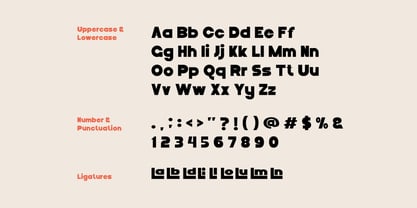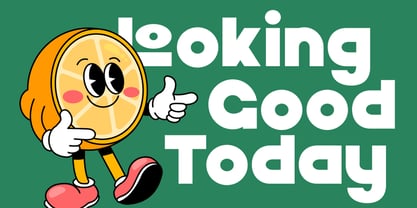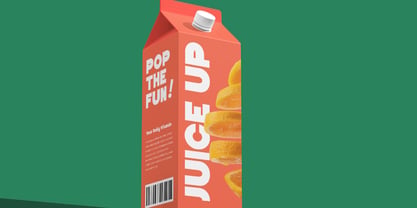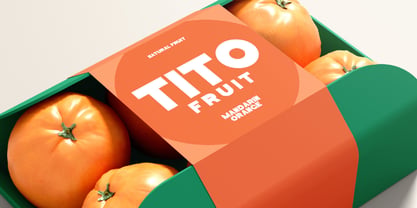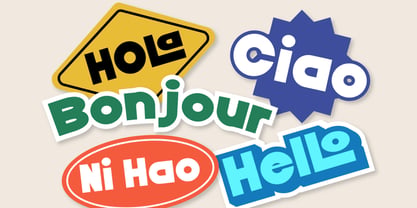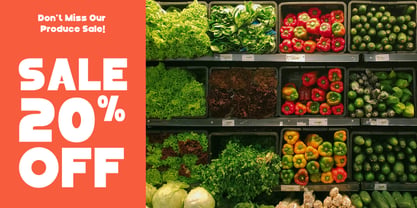
Lalalili
by Vadova Std
The Lalalili Font Family was designed by and published by Vadova Std. Lalalili contains 1 styles. More about this family
Lalalili is a bold and playful display font packed with personality. With chunky geometric forms, quirky ligatures, and a cheerful tone, this typeface is built to shine in fun, high-impact visual projects. It includes full uppercase and lowercase sets, punctuation, numbers, and a collection of creative ligatures for extra flair. Lalalili is perfect for creatives and brands targeting playful, youthful, and vibrant aesthetics. Its bold, rounded shapes make it suitable for kids' content, food packaging, character-based branding, and fun apparel. It works especially well in marketing campaigns, YouTube intros, sticker designs, and social posts where a burst of bold and friendly energy is needed.